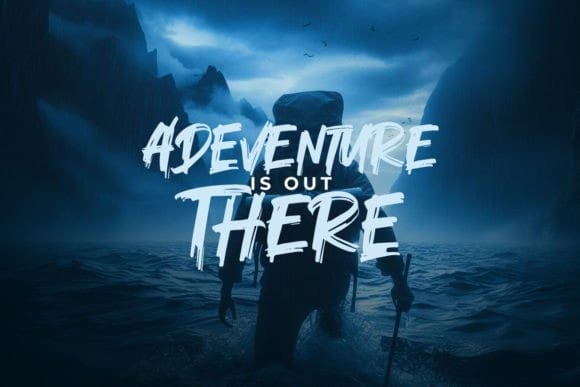
Orca Role Font
Orca Role Font is a modern brush font perfect for posters, logos, magazines, book covers, banners, and many more! Get this quirky display font, and use it to create lovely designs! It can easily be matched to an incredibly large set of projects, so add it to your creative ideas and notice how it makes them stand out!